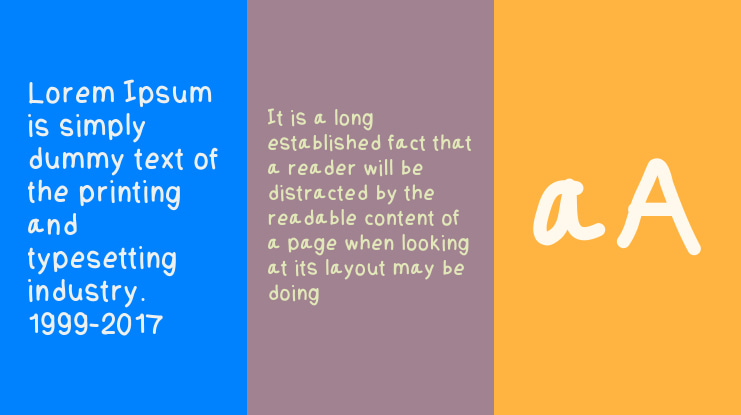
MobilesFont Font
A font designed to replicate a child's handwriting. Great for diaries and emails. Email me at  with comments. This font is free for personal and commercial use.